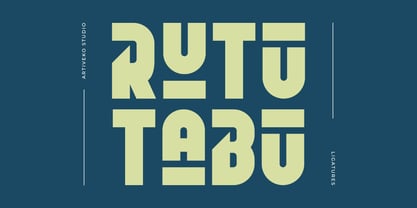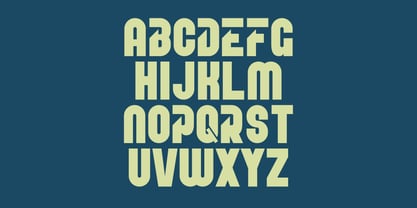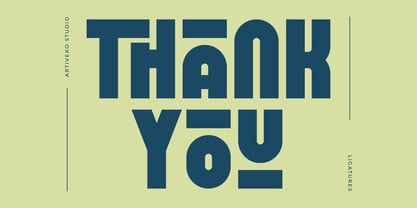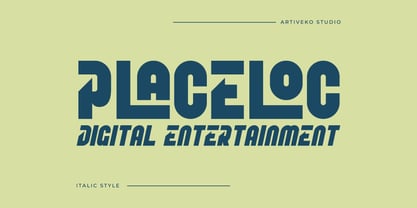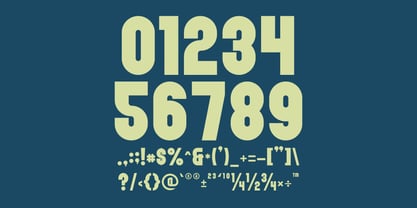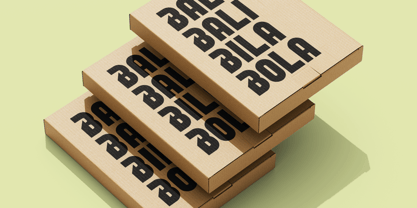
Rutu Tabu
by Artiveko
The Rutu Tabu Font Family was designed by Iwan Alwan and published by Artiveko. Rutu Tabu contains 2 styles and family package options.
Rutu Tabu is a creative sans serif font that brings playful originality and modern aesthetics into perfect balance. With its quirky letterforms and clean structure, Rutu Tabu is designed for designers who want to express bold ideas without sacrificing clarity. Whether you're working on branding, packaging, posters, or digital content, this font stands out with character and style.
Unlike traditional sans serifs, Rutu Tabu features unique curves and unexpected shapes that grab attention while remaining easy to read. Its fresh personality makes it ideal for creative industries, fashion labels, tech startups, lifestyle blogs, or anything that needs a strong yet friendly visual identity.
About Artiveko
Artiveko is a font design team based in Indonesia, comprised of several talented font designers who commenced their careers in the font design industry in 2020. With a dedicated focus on crafting fonts, the team members bring their collective expertise and passion to every project they undertake. Situated in Indonesia, Artiveko draws inspiration from the vibrant cultural landscape of the region, infusing their creations with unique flavors and aesthetics.The team's font collection encompasses a diverse range of styles, including serif, sans serif, handwritten, and script typefaces. Each typeface is meticulously crafted to meet the demands of modern design while offering versatility and functionality across various applications. Whether it's the classic elegance of serif fonts, the contemporary appeal of sans serif designs, the personal touch of handwritten scripts, or the expressive flourishes of script fonts, Artiveko ensures that every font reflects their dedication to quality and innovation.Artiveko's fonts have garnered recognition and acclaim, with their works being featured on prominent social media platforms like Creative Market. Through these platforms, the team has been able to connect with a global audience of designers and typographers, further amplifying their reach and influence in the industry. Their fonts are celebrated for their impeccable craftsmanship, attention to detail, and ability to elevate design projects with style and sophistication.As Artiveko continues to evolve and expand its font collection, the team remains committed to pushing the boundaries of typography and setting new standards of excellence. With a relentless focus on creativity, innovation, and collaboration, Artiveko strives to inspire and empower designers around the world with their distinctive and versatile font designs.